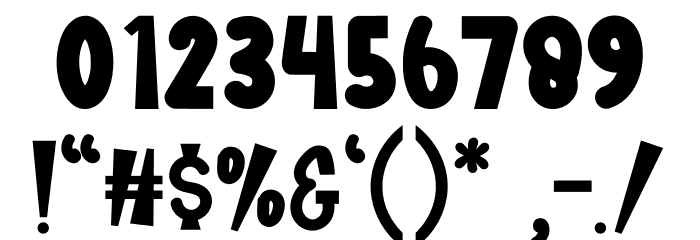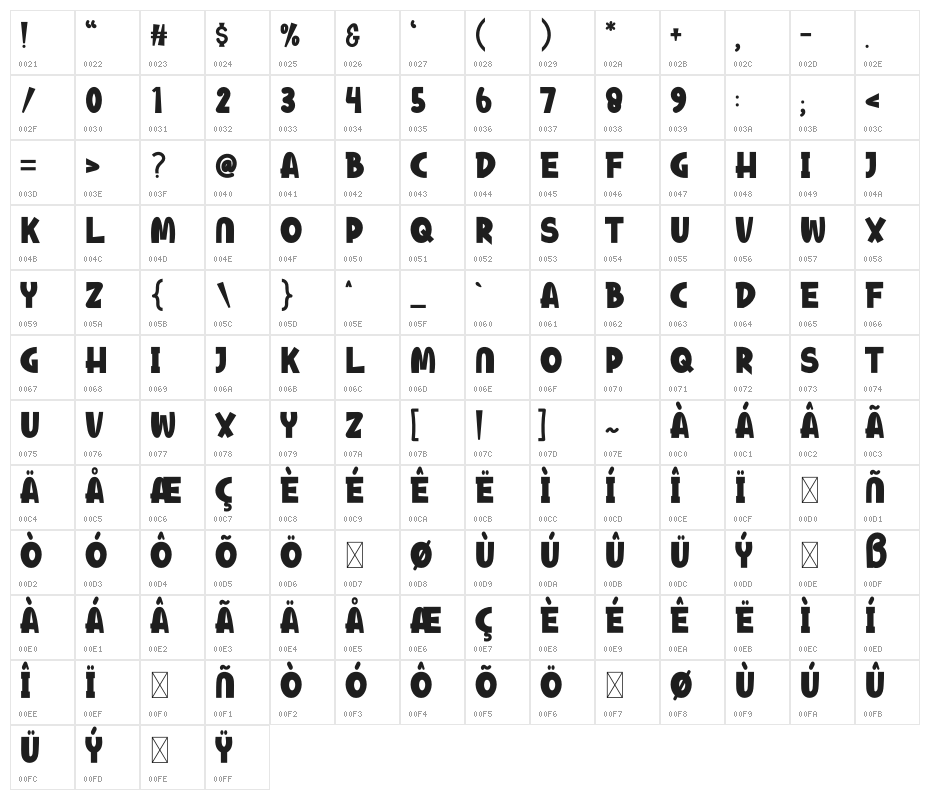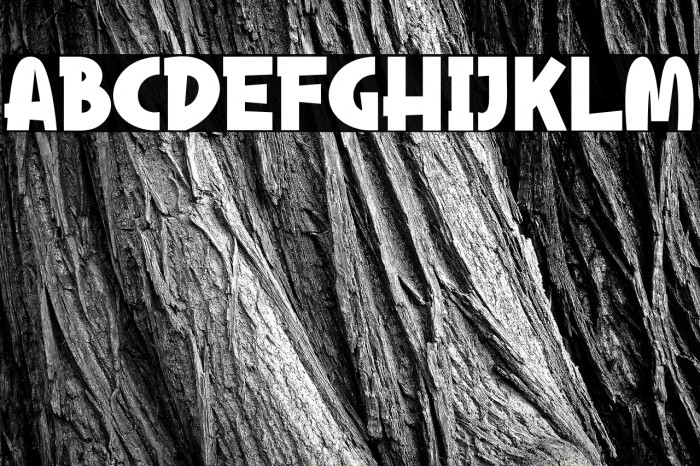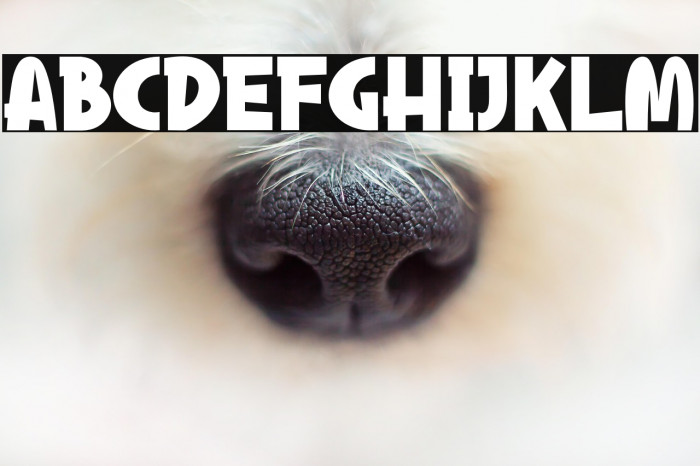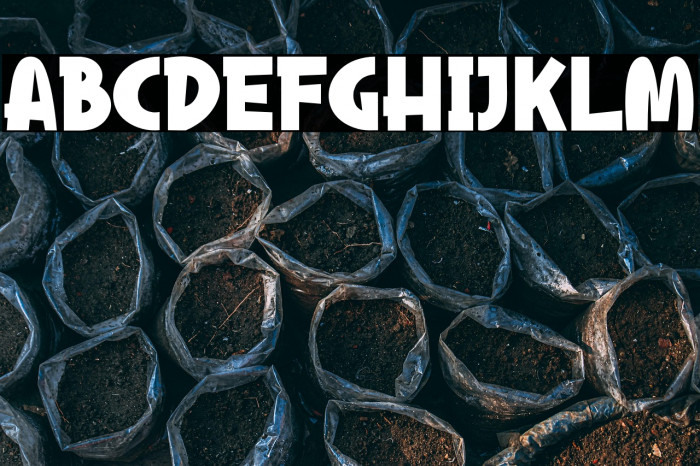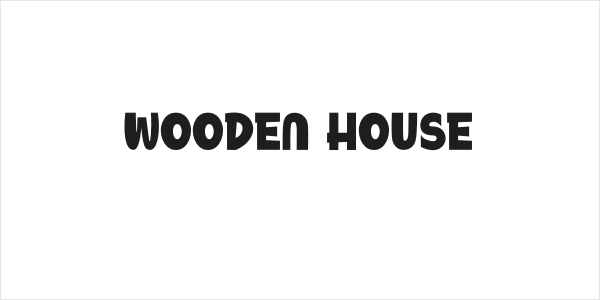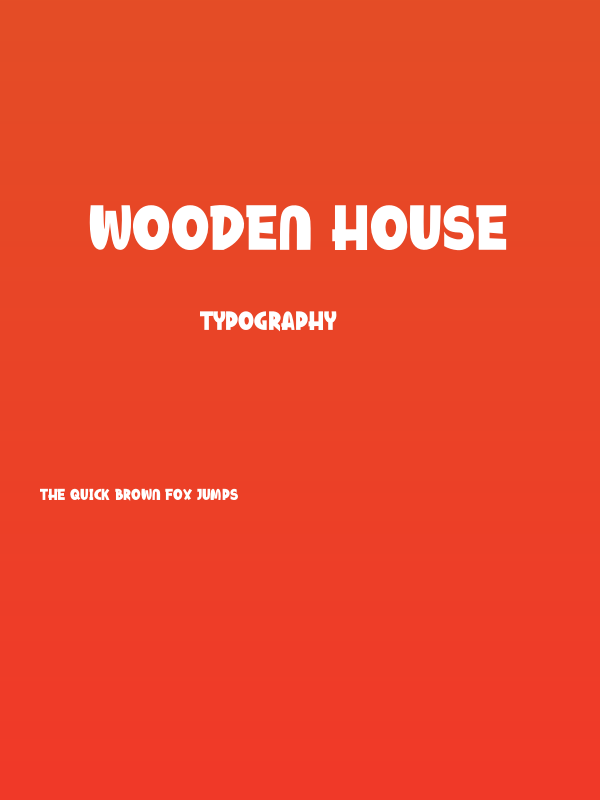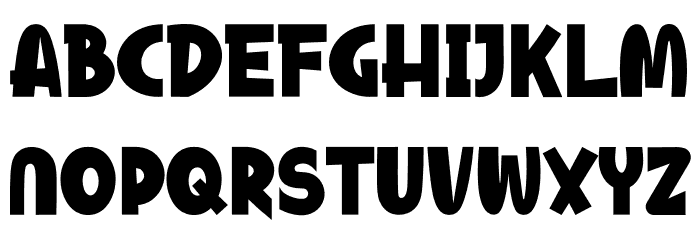
Wooden House Font
Wooden House Description
This font features bold, rounded characters with a playful and whimsical style. The letters have a distinct, chunky appearance, making them stand out with a strong visual presence. The strokes are thick and consistent, providing a uniform look across all characters. The font has a slightly retro feel, reminiscent of mid-20th-century design, yet it maintains a modern touch with its clean lines and smooth curves. The numbers and special characters follow the same bold and rounded style, ensuring consistency throughout. This font is ideal for creating eye-catching headlines or logos that require a fun and engaging aesthetic.
| Overall Style | Playful, Retro, Modern |
| Proposed Projects | Ideal for children's books, playful branding, posters, and retro-themed designs. |